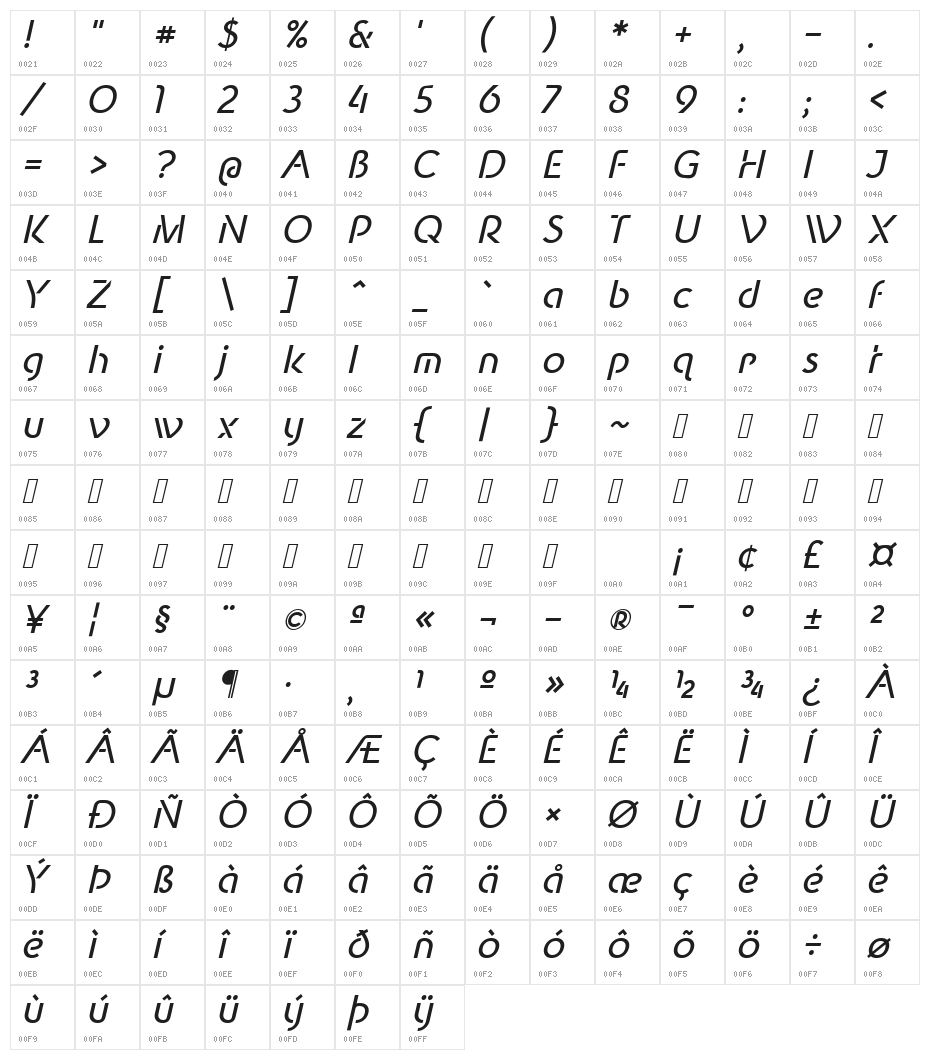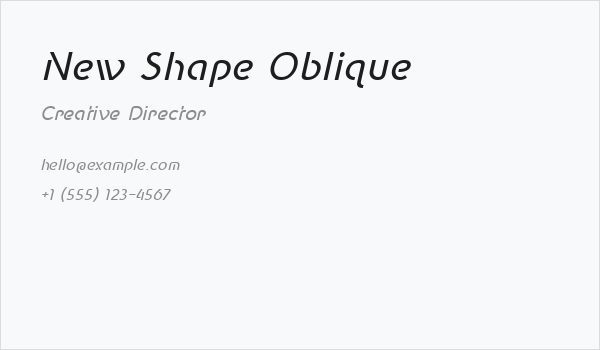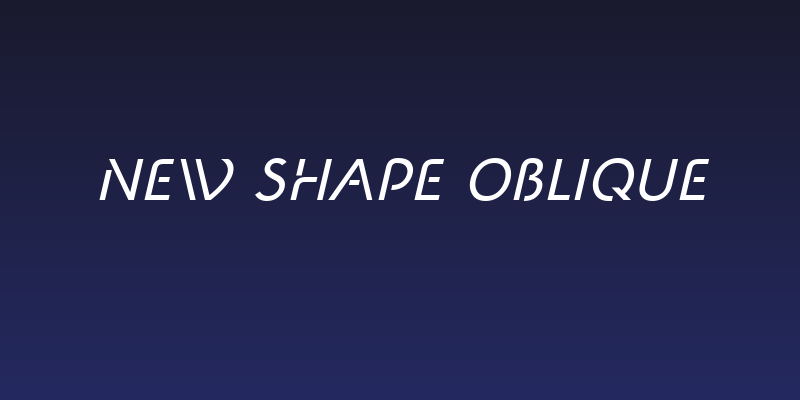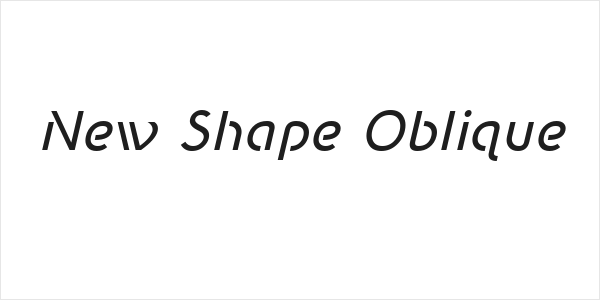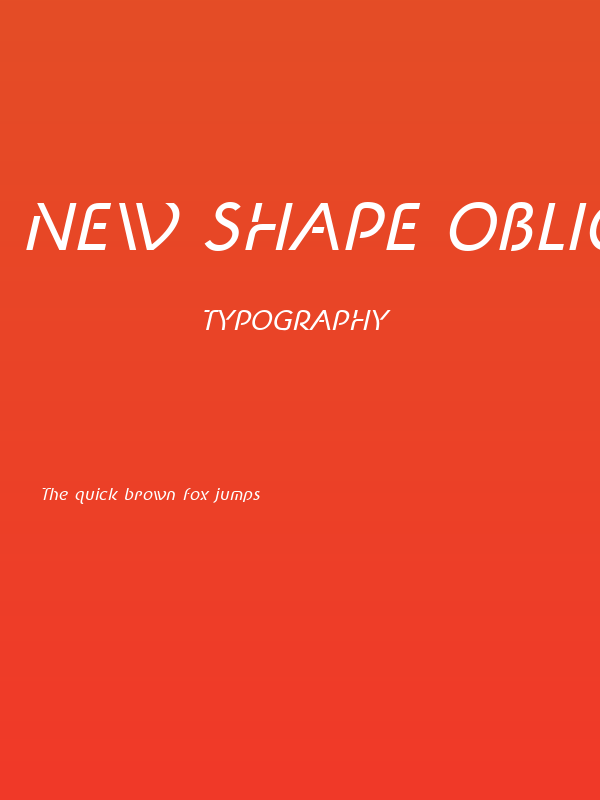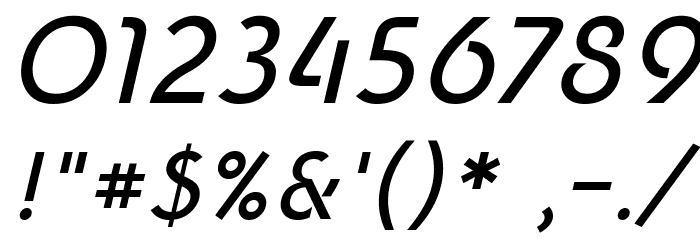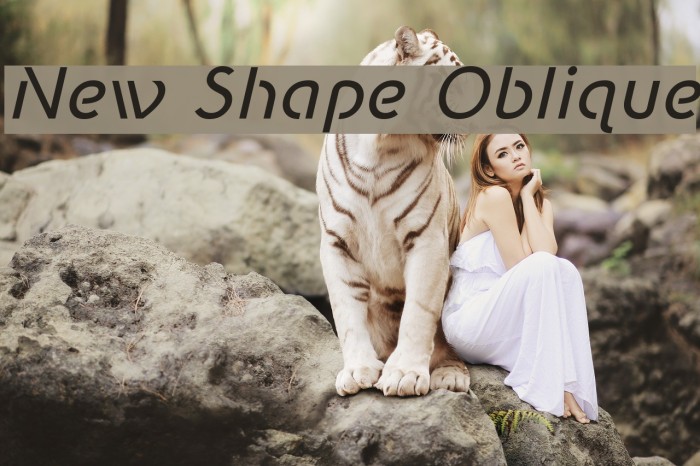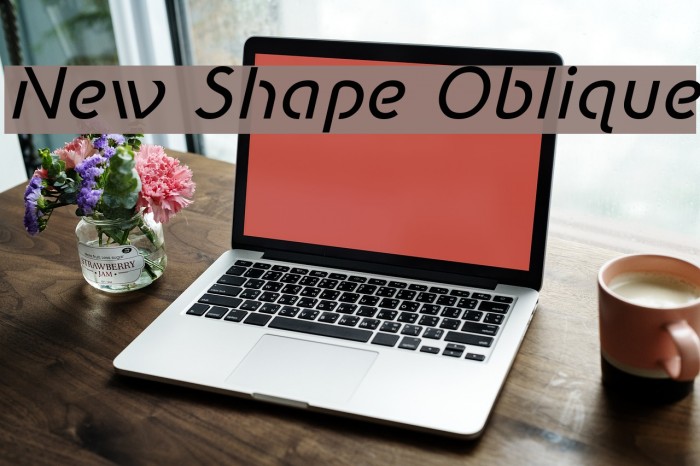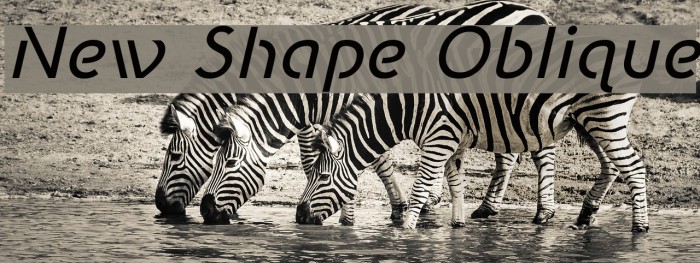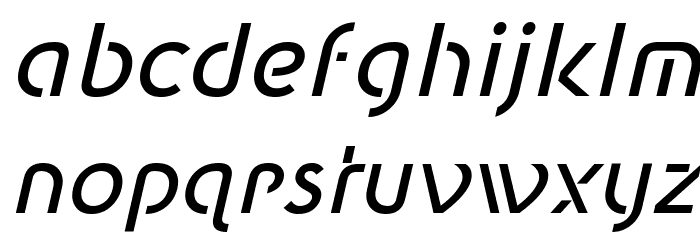
New Shape Oblique Font
This font features a sleek, modern design with an oblique orientation, giving it a dynamic and forward-moving appearance. The characters are clean and geometric, with a consistent stroke width that maintains a uniform look across both uppercase and lowercase letters. The numerals and special characters follow the same stylistic cues, ensuring a cohesive visual identity. The font's slanted style adds a sense of motion and energy, making it suitable for contemporary design projects. Its clarity and simplicity make it versatile for various applications, while the oblique angle adds a unique touch that sets it apart from traditional sans-serif fonts.
| Proposed Projects | Ideal for branding, advertising, and editorial design where a modern and dynamic look is desired. |